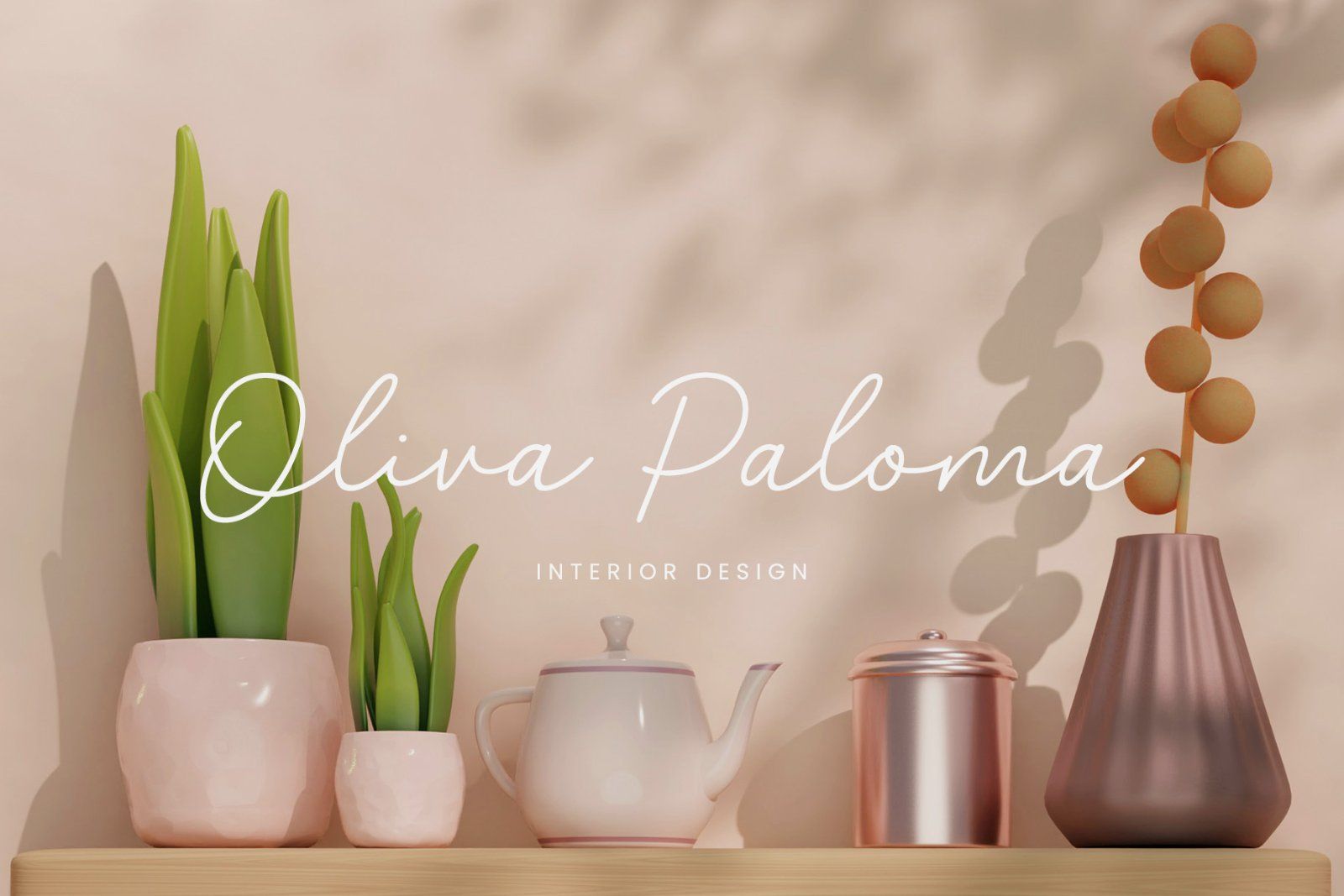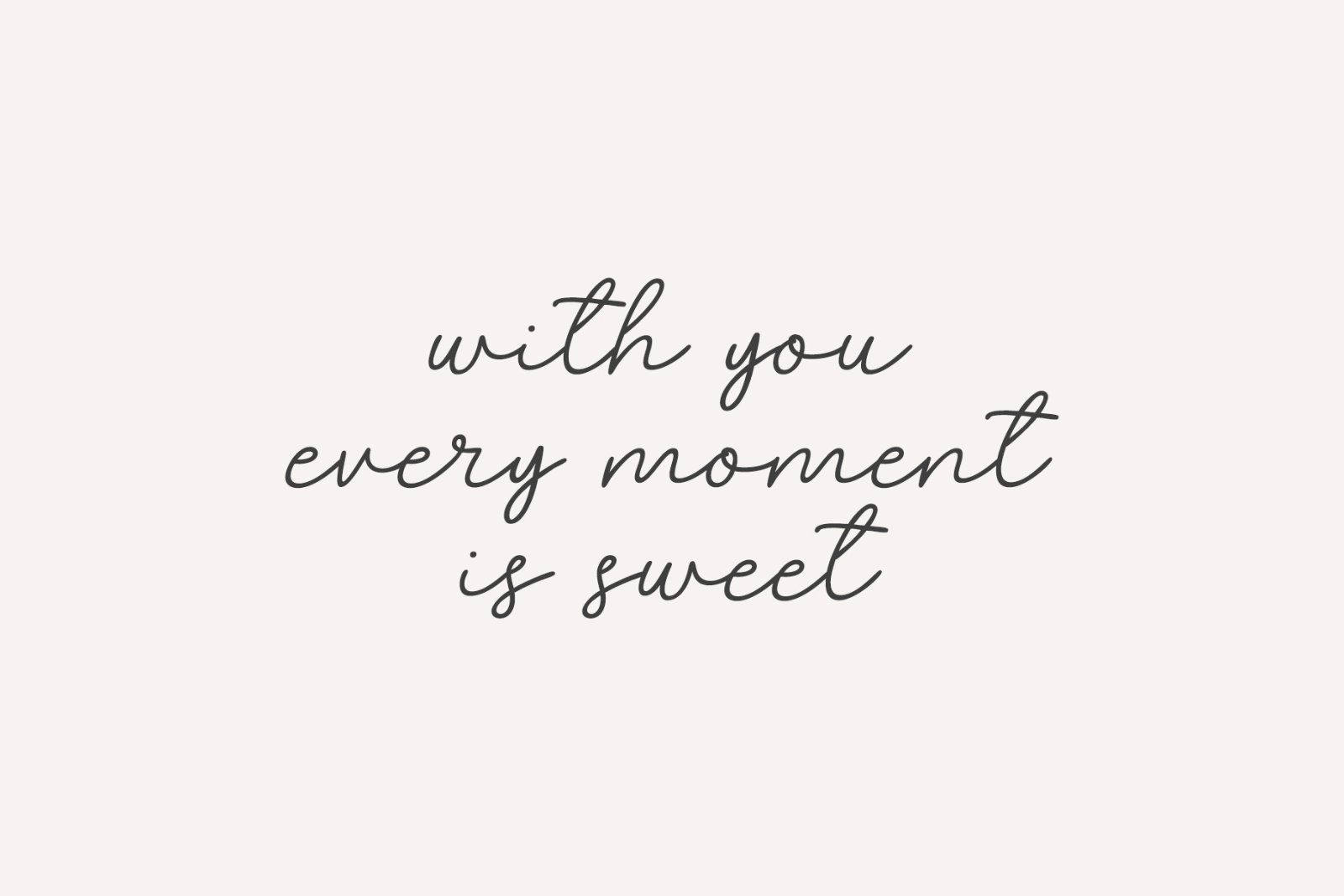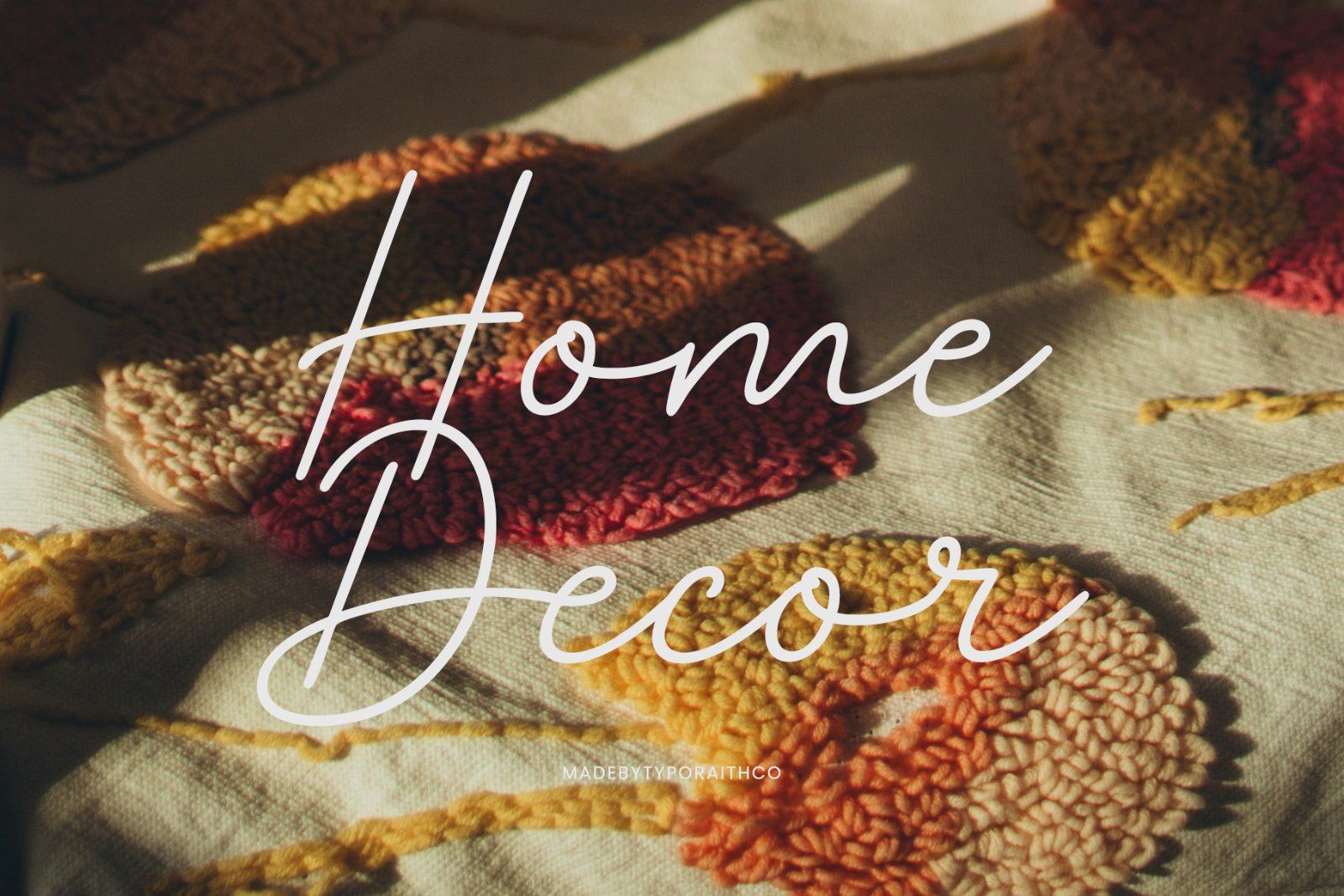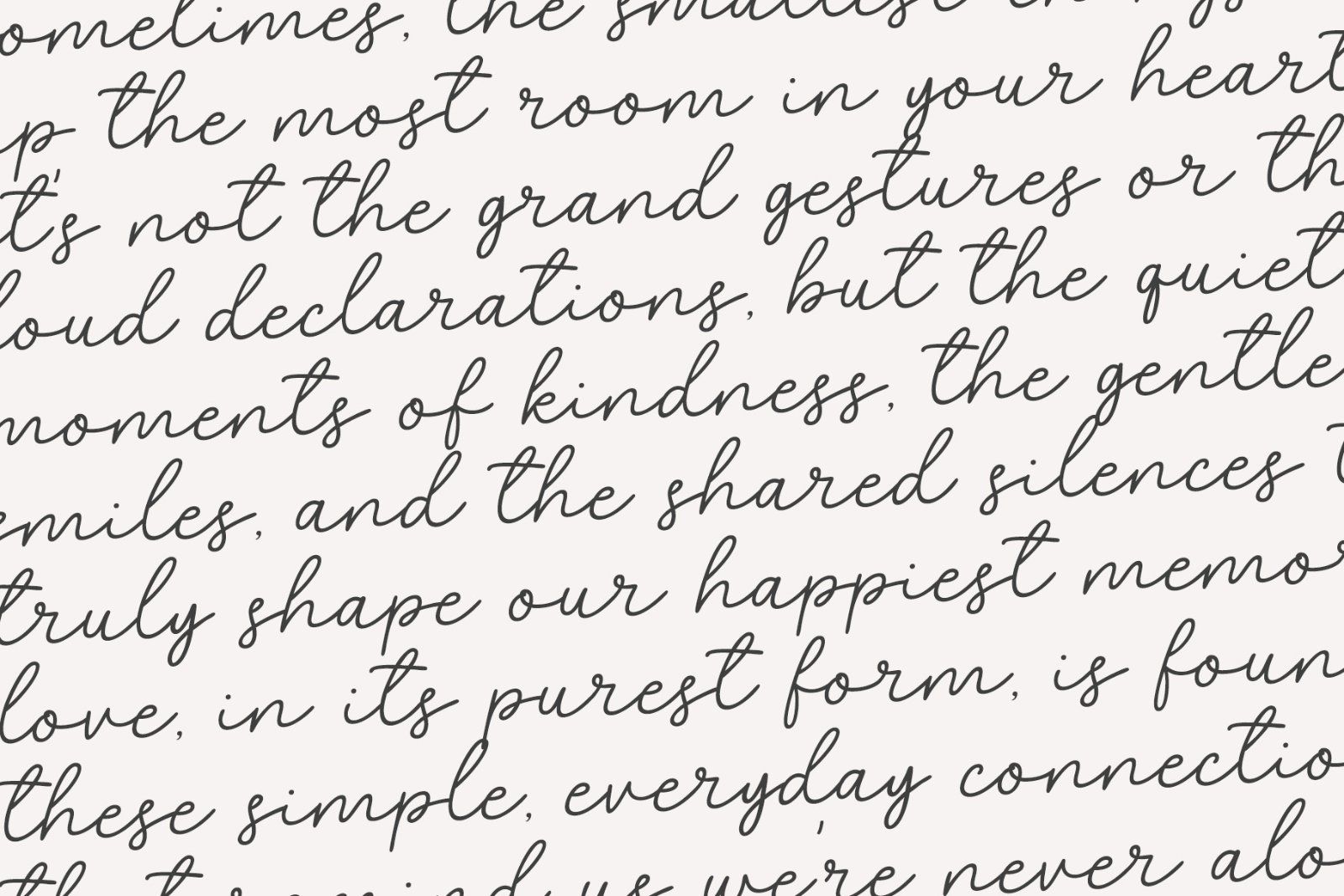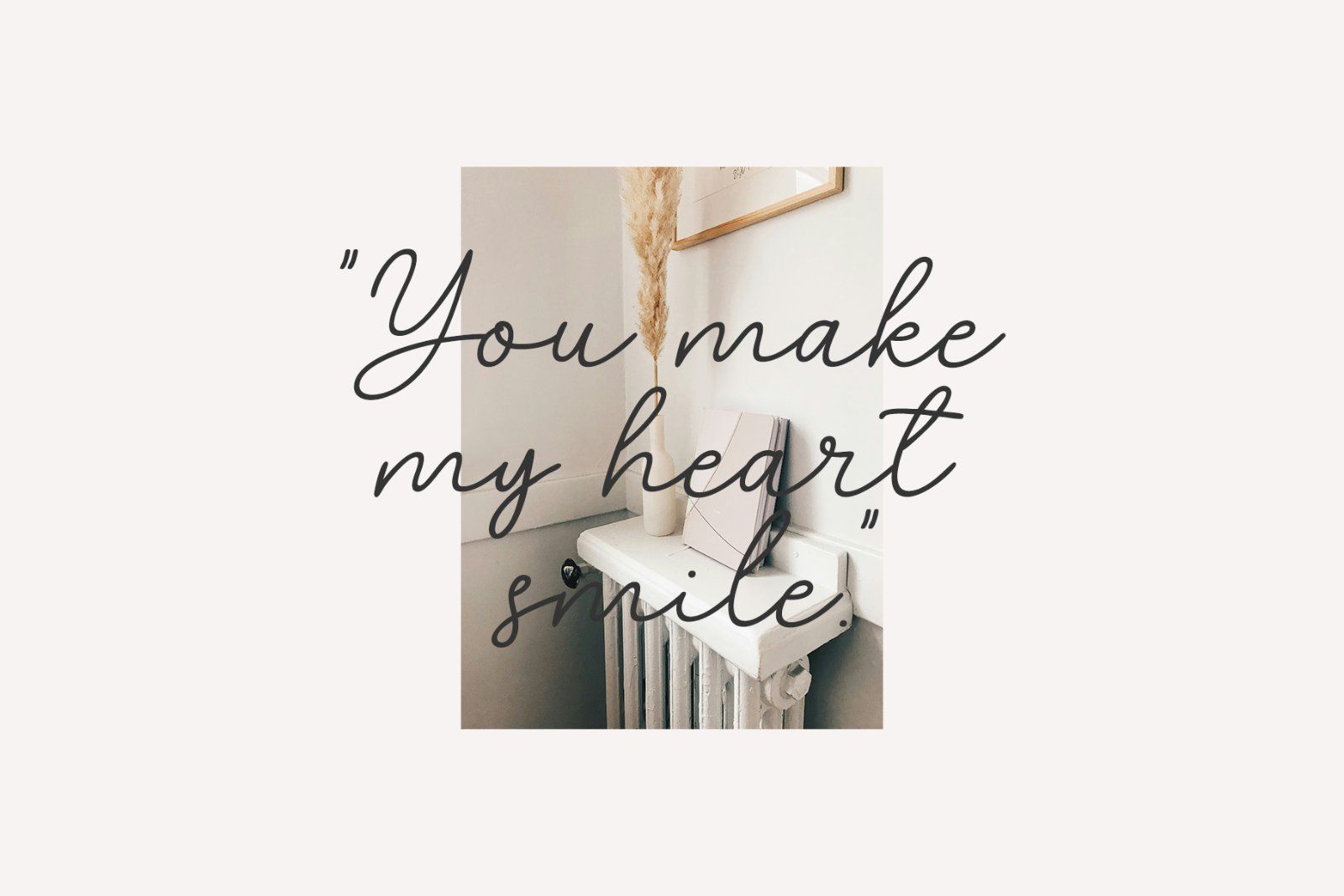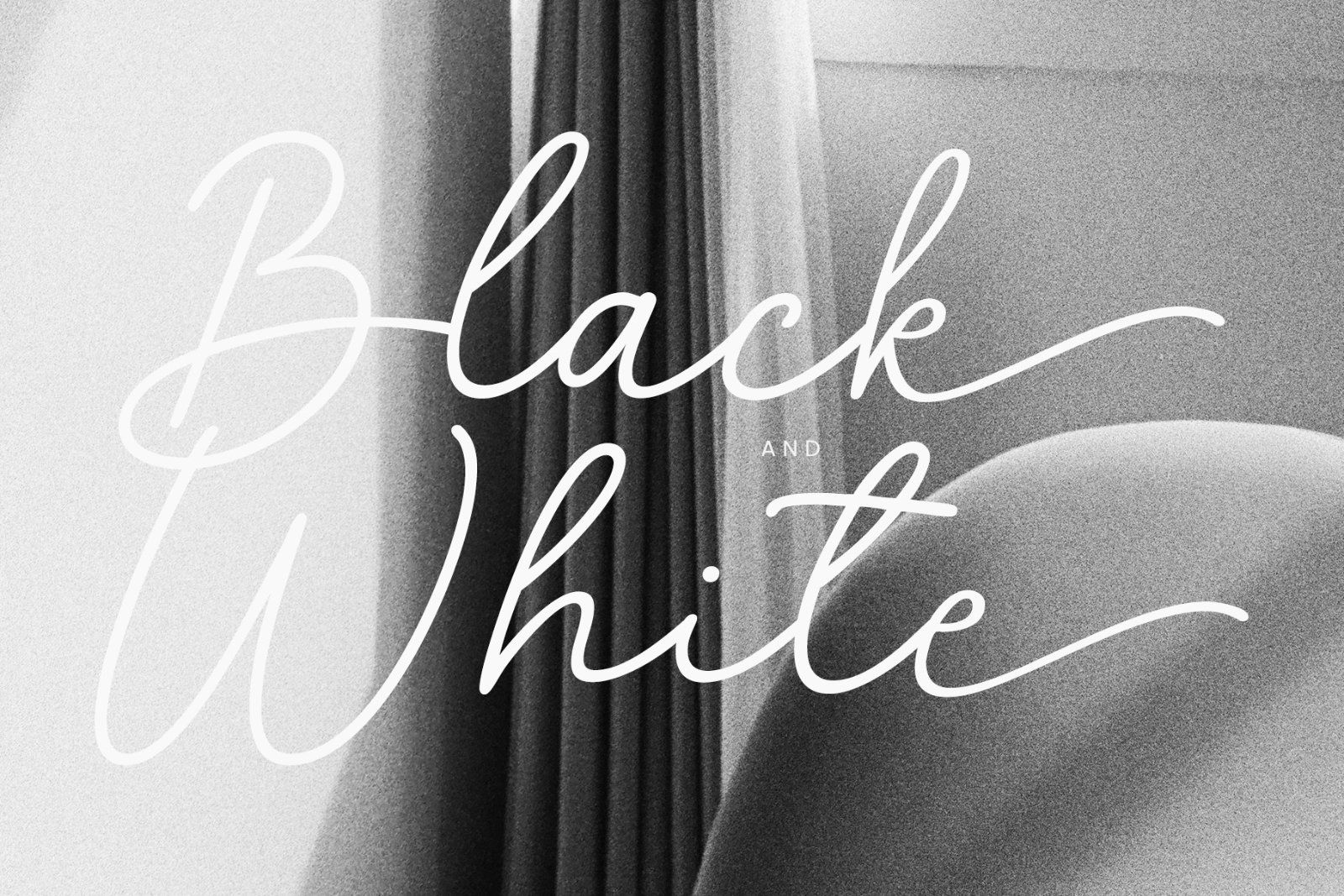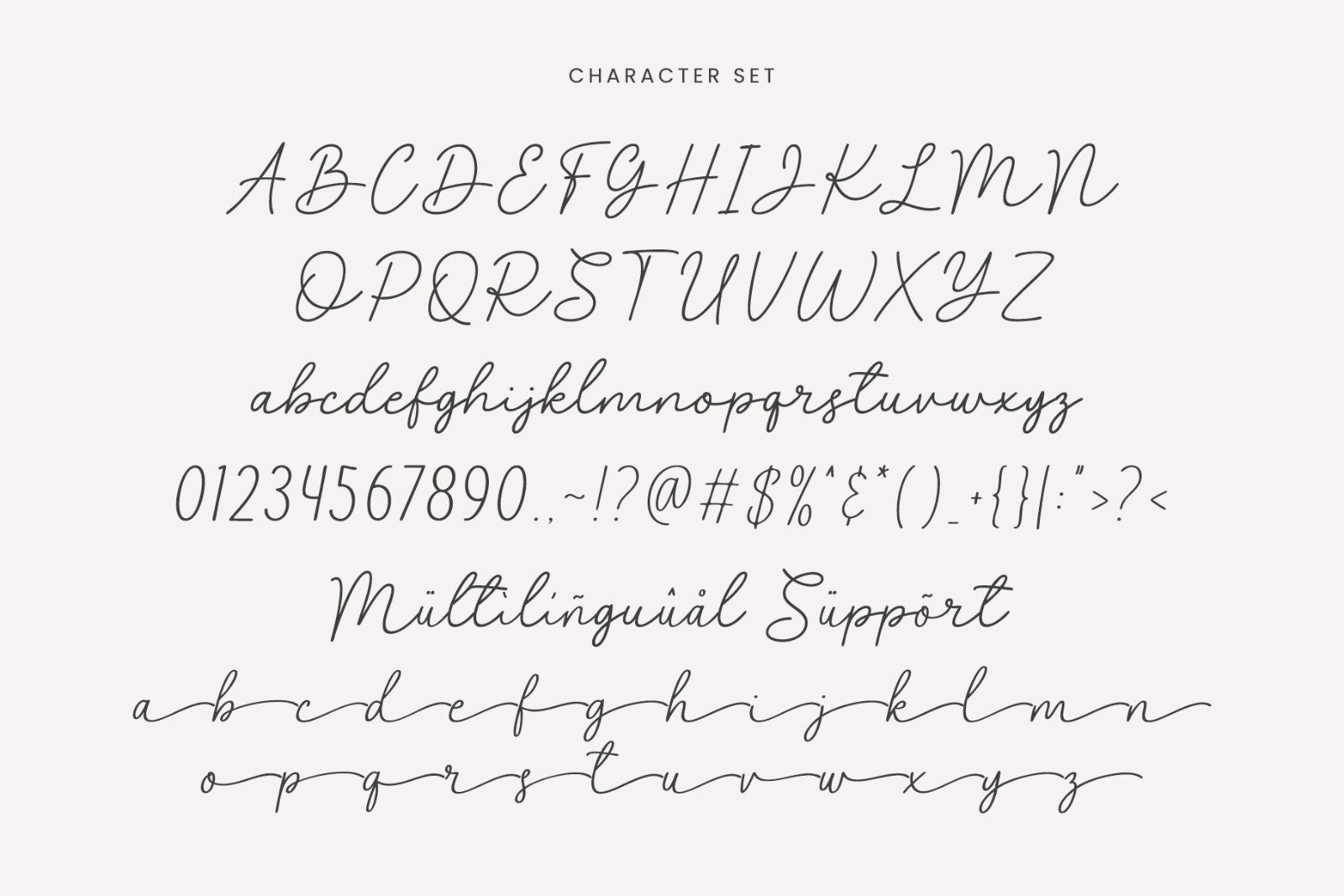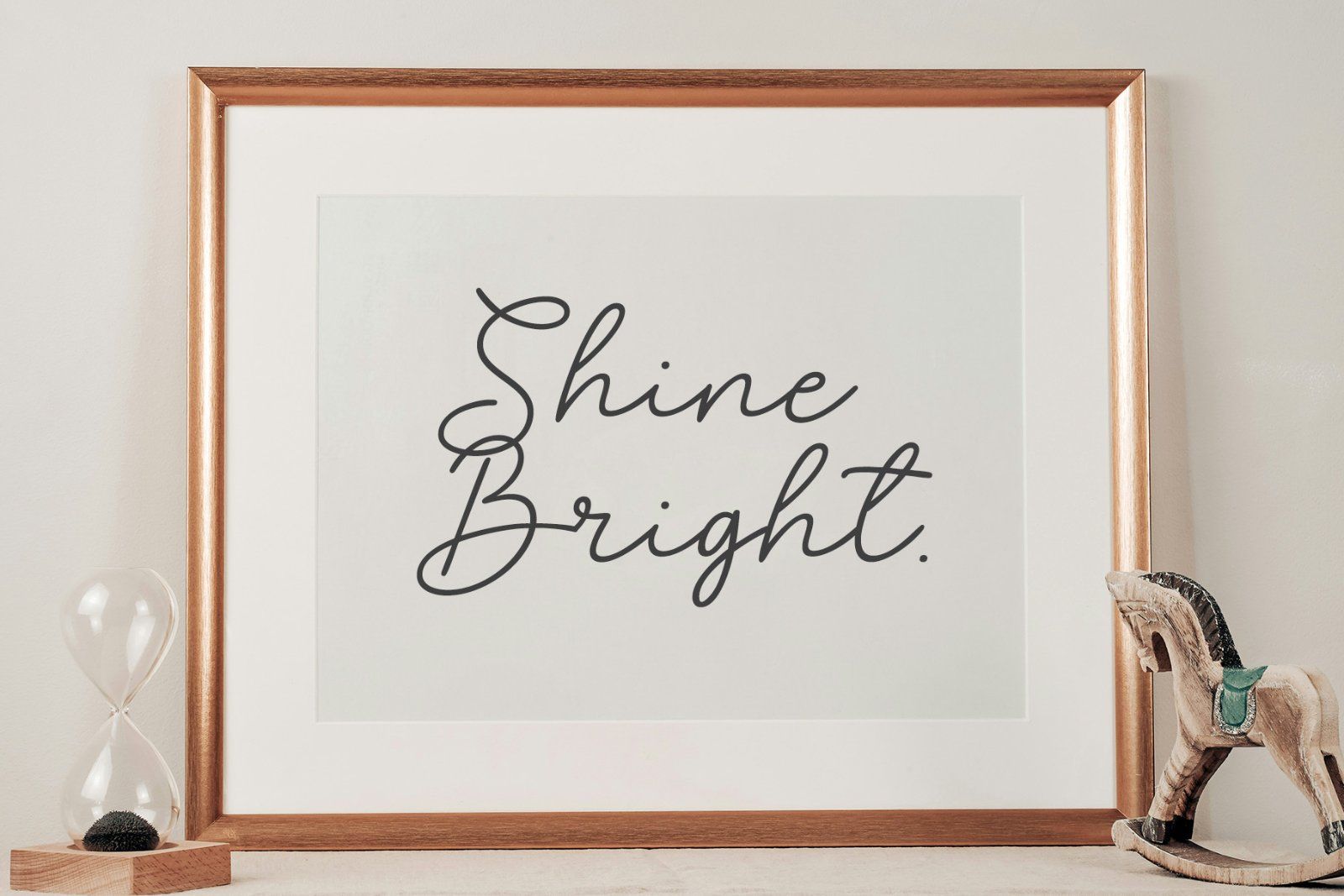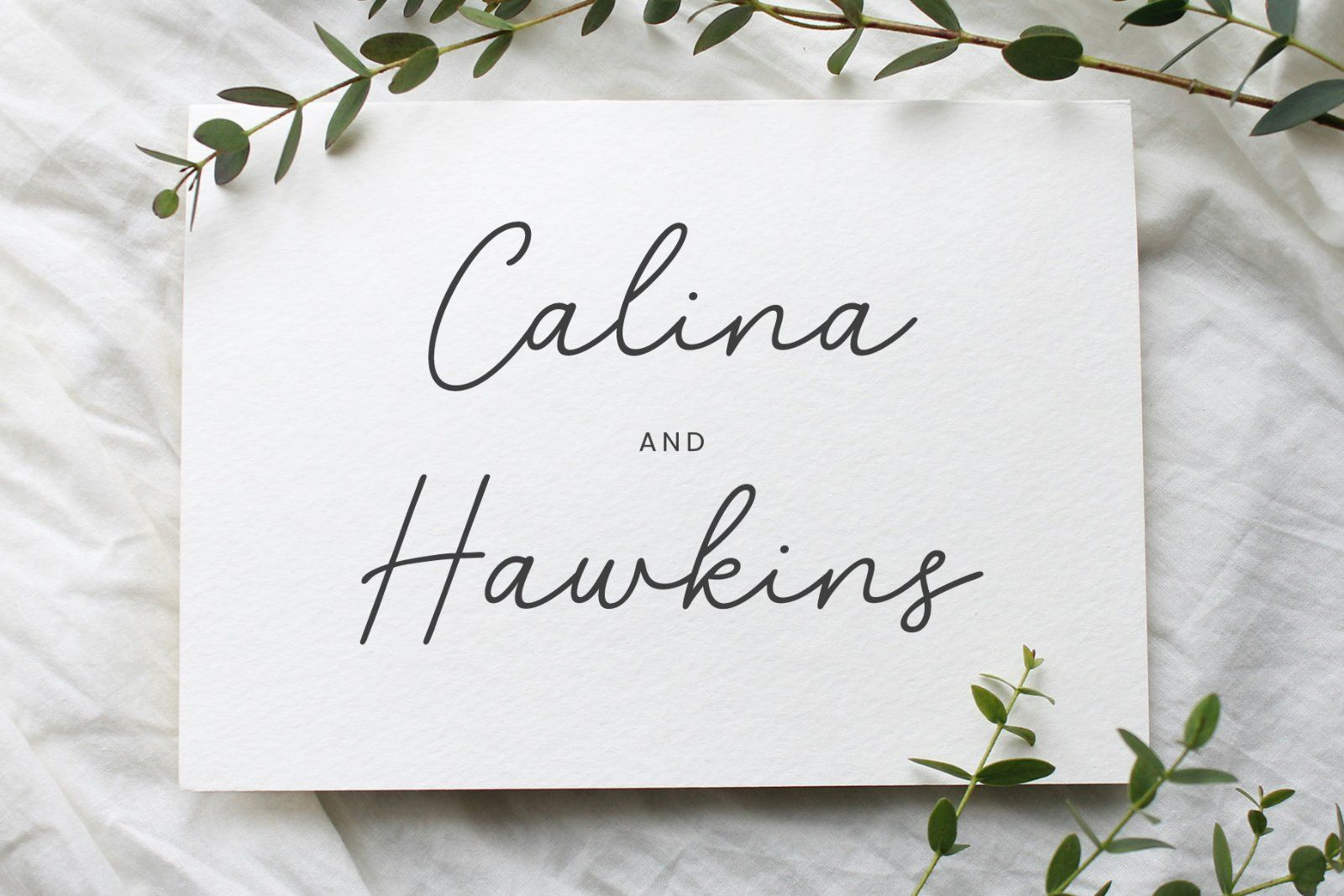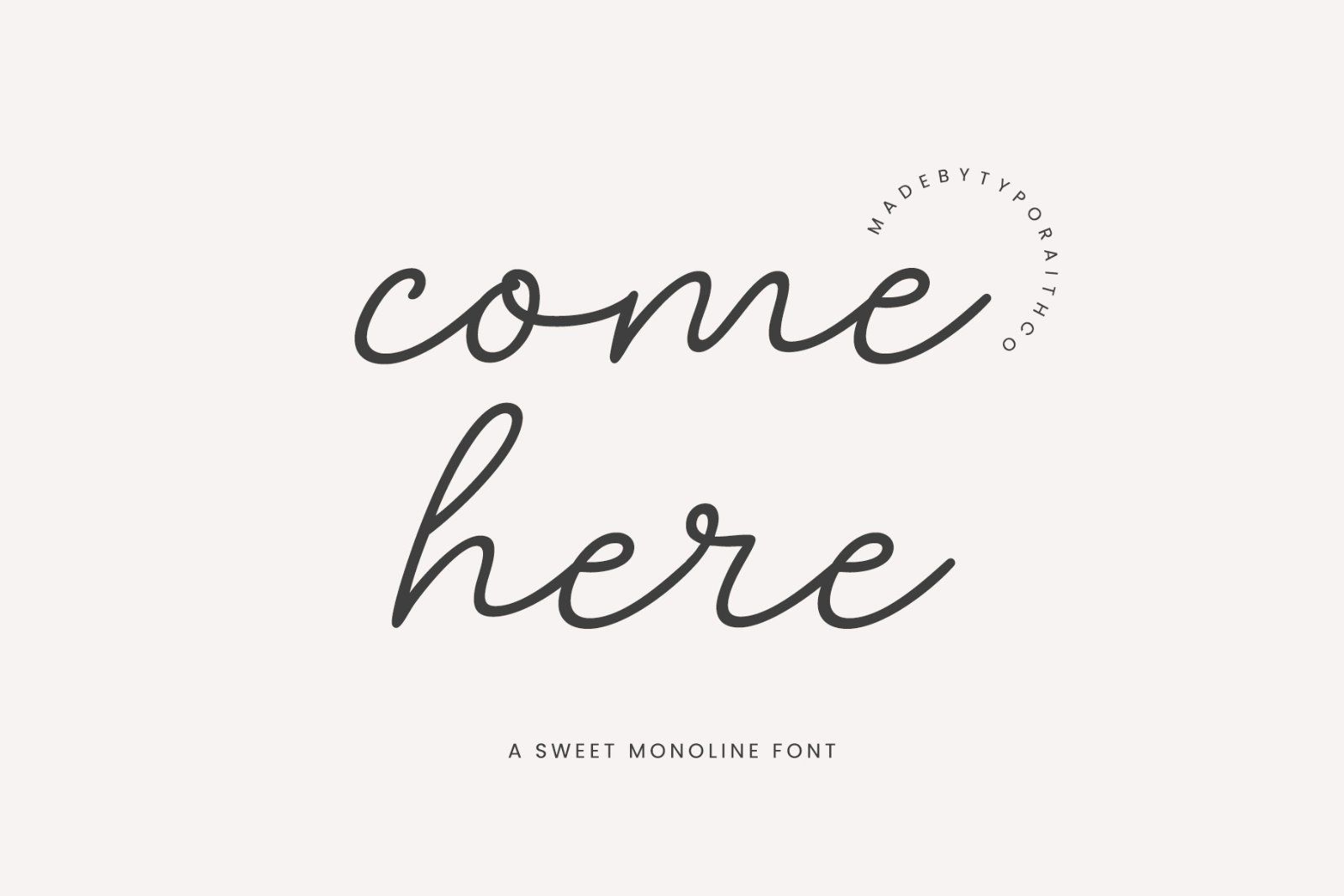
Come Here, a charming monoline script font designed to bring warmth and personality to your projects. With its smooth, flowing lines and sweet handwritten feel, it’s perfect for invitations, logos, quotes, greeting cards, and more. Whether you're crafting something romantic or just want a touch of elegance, Come Here adds a soft, stylish flair that stands out beautifully.
• Full set of uppercase & lowercase letters
• Multilingual support & Alternates